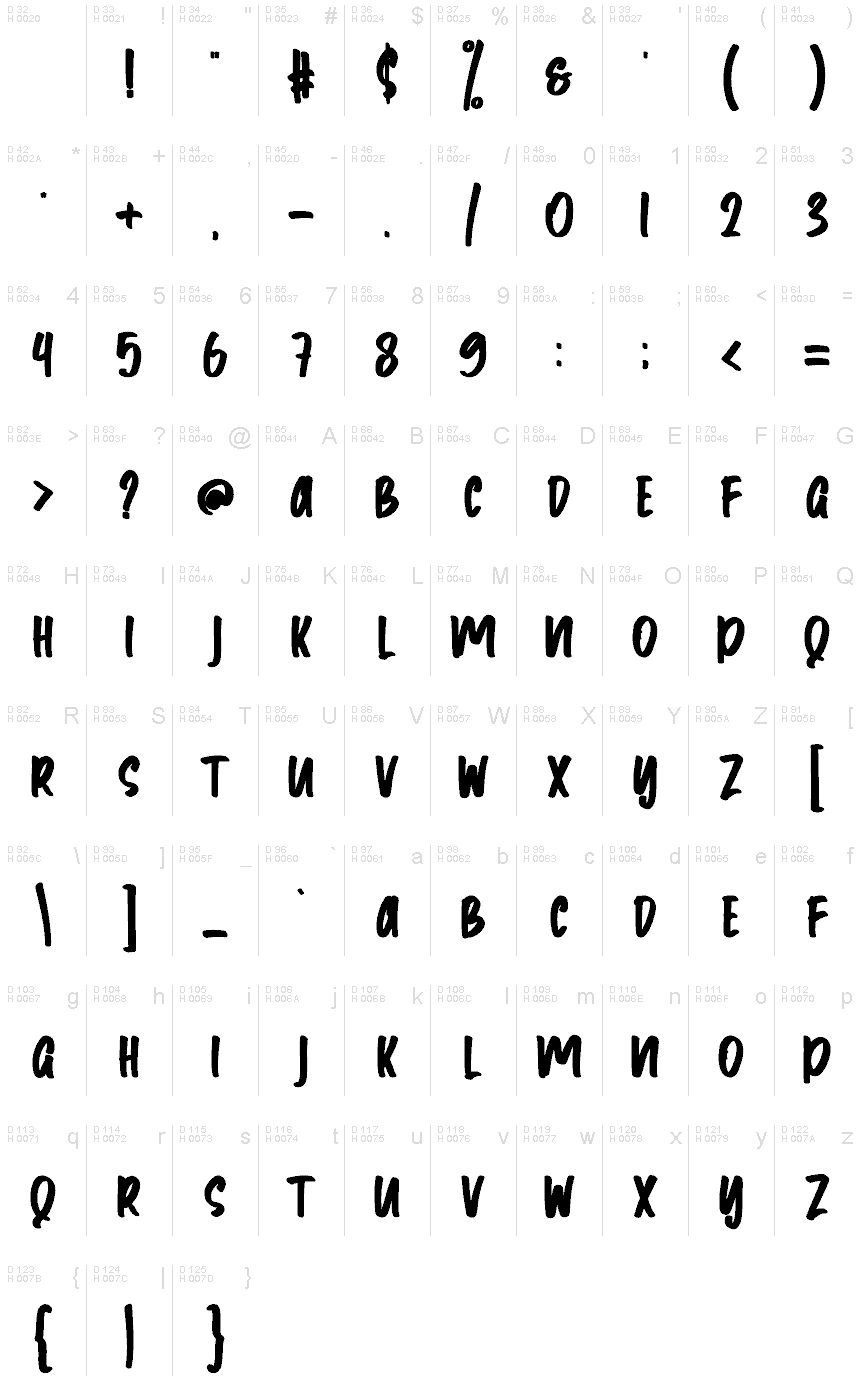
Gafyune
Gafyune font by Skiiller Studio is a free handwritten font with a bold weight and condensed appearance. The expressive, energetic, casual, and modern design is marked by gently curved and edgy letters that appear friendly and organic. Each character gives off an authentic personality found in hand writings which adds an element of human touch to designs.
Gafyune suits branding projects, product packaging, social media posts, invitations, greeting cards, and promotional posters on print or online. It also fits book covers or even body texts in books for children of younger ages such as toddlers. Other interesting uses include stickers for phones or laptops among others.